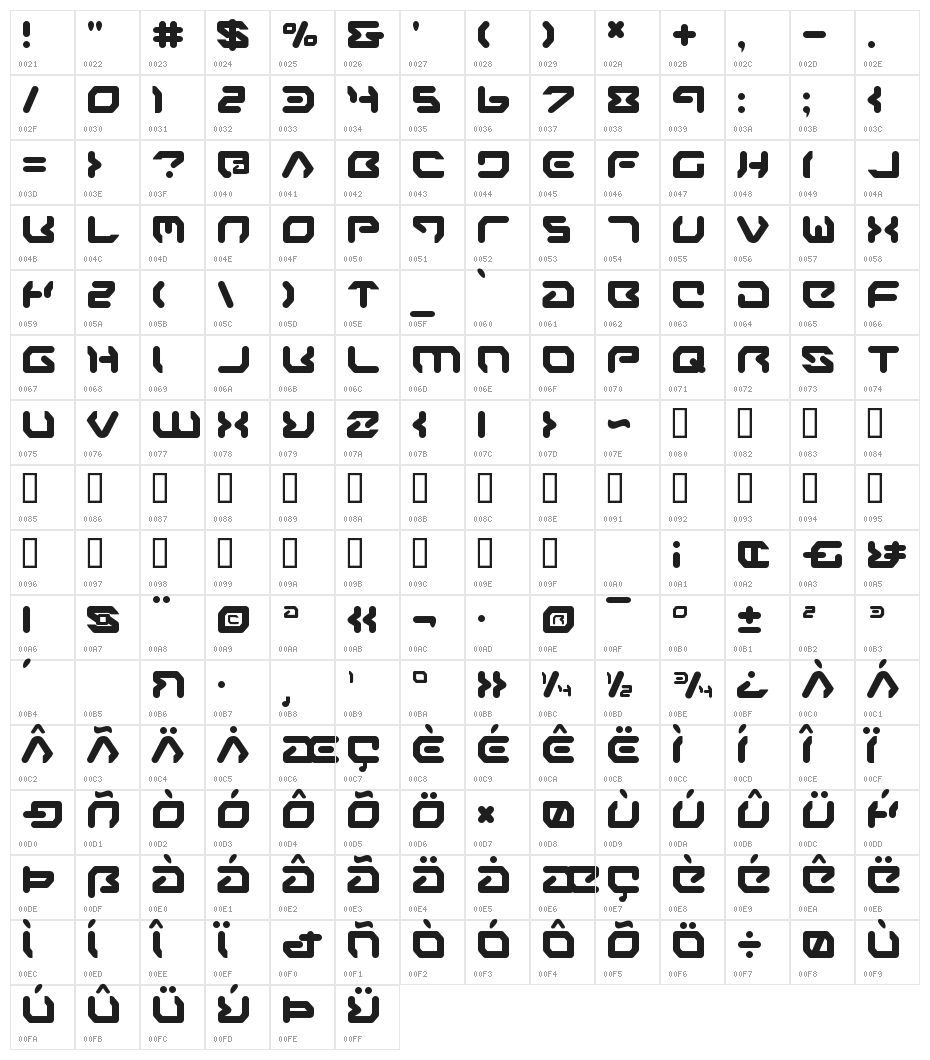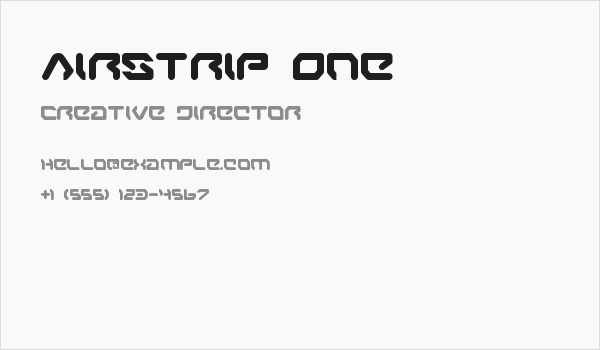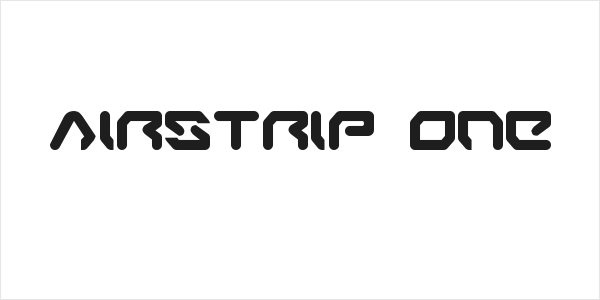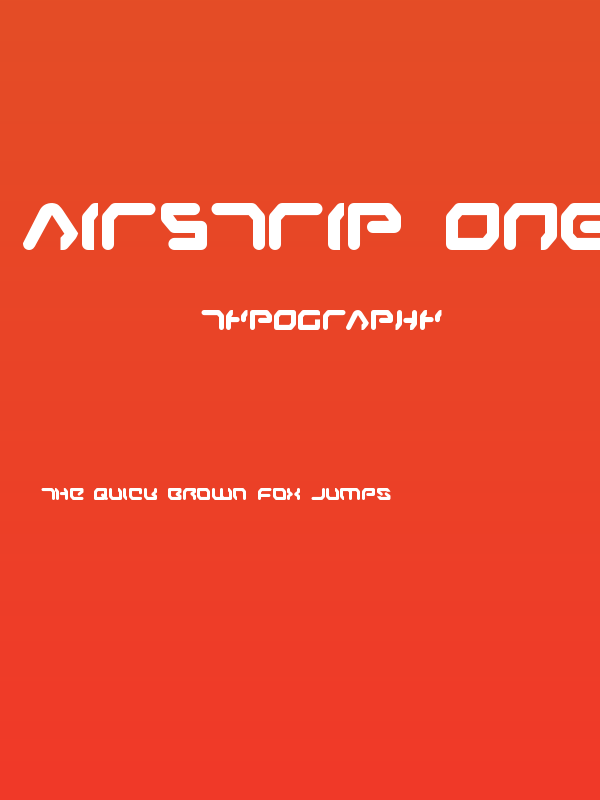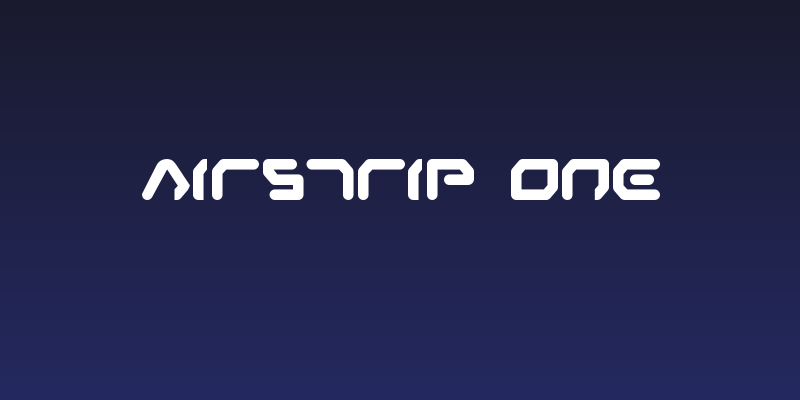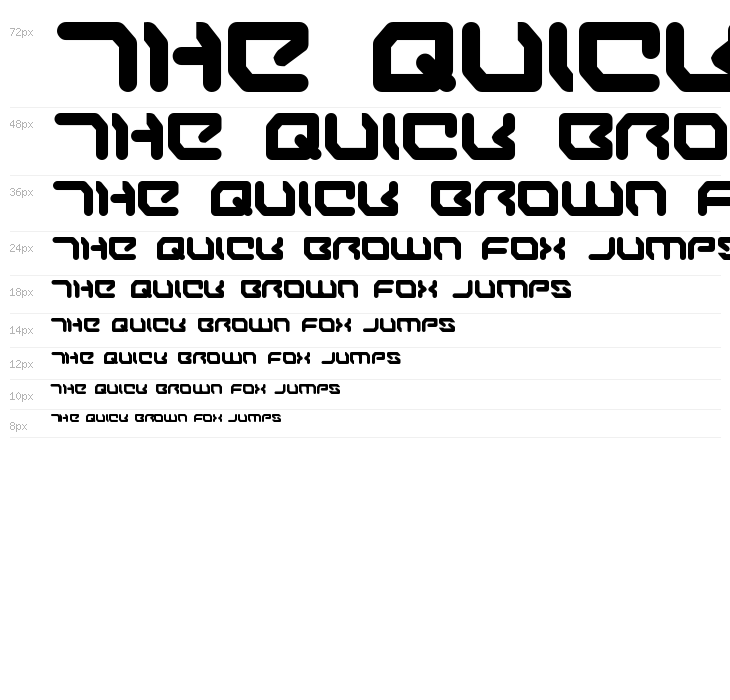
Airstrip One Font
Airstrip One Description
This font features a futuristic and geometric design with bold, angular shapes. The characters are constructed with a consistent thickness, creating a uniform and cohesive appearance. The style is reminiscent of digital or sci-fi themes, with a modern edge that makes it stand out. The uppercase and lowercase letters maintain a similar structure, enhancing readability while preserving the unique aesthetic. Numbers and special characters are designed to match the overall theme, ensuring a seamless integration across different uses.
| Proposed Projects | Ideal for sci-fi themed projects, digital interfaces, video game graphics, and modern branding. |